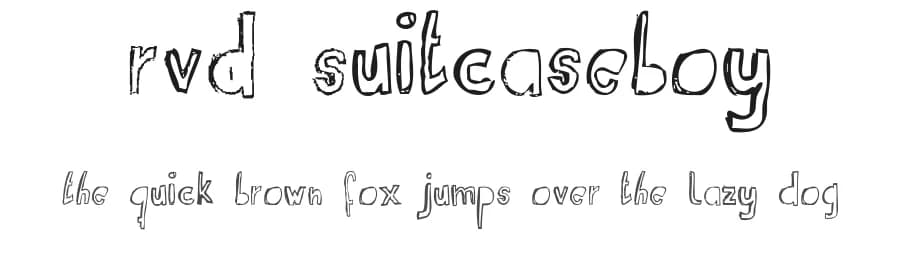
About RvD Suitcaseboy Font
RvD Suitcaseboy is a script & handwritten font designed by Rich.vom.Dorf.. It includes 90 glyphs, a regular weight, TTF (TrueType) format, and 104 languages. RvD Suitcaseboy is free to download; check the license details on this page before commercial use. Script & handwritten fonts like RvD Suitcaseboy work best for wedding invitations, greeting cards, signatures, and elegant branding.
RvD Suitcaseboy Font is a script font that shines as a display or heading face. Pair it with a clean sans-serif or serif font for body text β the contrast creates a clear hierarchy while the two styles stay balanced and easy to read.
RvD Suitcaseboy Font
RvD Suitcaseboy Font is a script handwritten typeface by Rich.vom.Dorf., ideal for logos, invitations, branding, and creative projects.